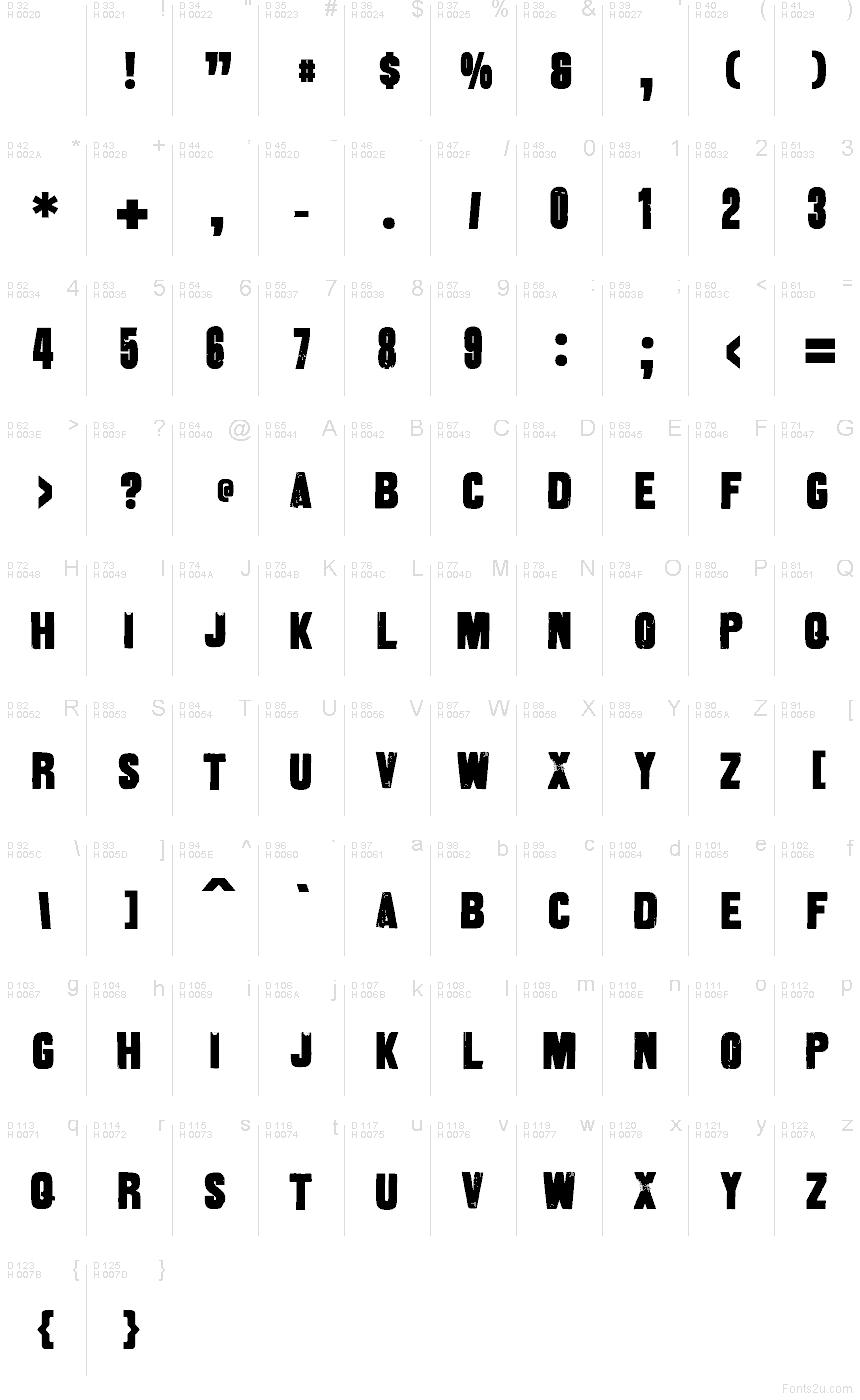
Heavy Dois font by Douglas Vitkauskas is a free eroded display typeface that hits like a chunk of ink-smeared concrete. Thick, slabby letters are gouged, scratched, and speckled with rough texture, so every word feels stamped, scraped, and worn in. The tight spacing and heavy weight give it a wall-of-sound presence that grabs attention instantly, even from across a room.
Using Heavy Dois, you get a raw, street-level energy that shines on gig posters, album covers, skate or streetwear branding, protest graphics, event flyers, and bold social media banners. This free font works beautifully when you set it large and keep supporting text in a clean, simple sans serif to let the gritty headlines do the shouting.
Heavy Dois